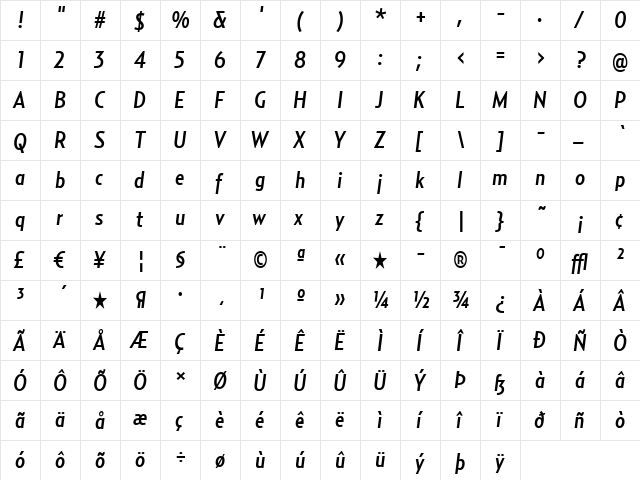
RelayCond-MediumItalic Regular Font Preview
RelayCond-MediumItalic Regular
RelayCond-MediumItalic Regular Font Details
| Designer | Cyrus Highsmith |
Design Context for RelayCond-MediumItalic Typeface
RelayCond-MediumItalic is a composed and adaptable typeface that performs quietly and consistently across a wide range of design contexts. Its italic angle brings a sense of urgency and motion to the letterforms. The condensed width makes it efficient for tight spaces without sacrificing legibility.
Pro Tip: Use RelayCond-MediumItalic for emphasis, pull quotes, and subheadings where its slanted energy can add rhythm to the layout.